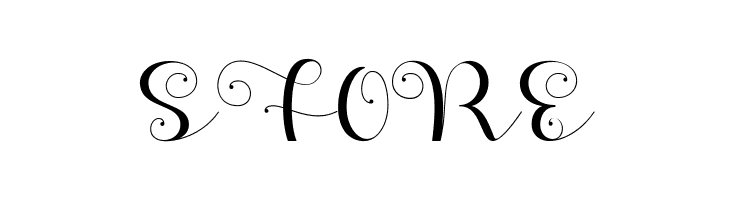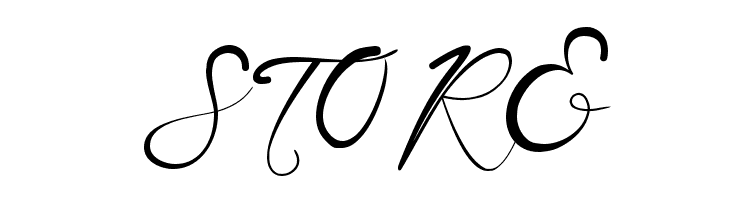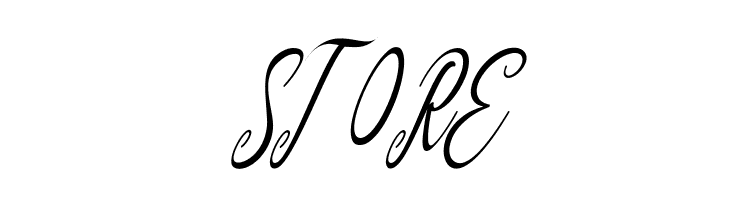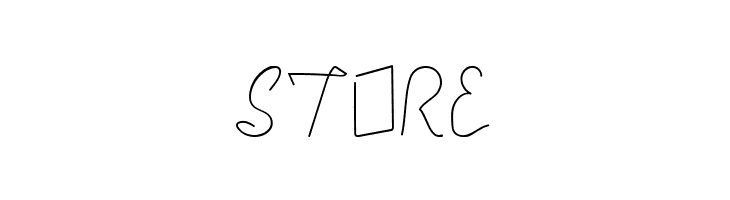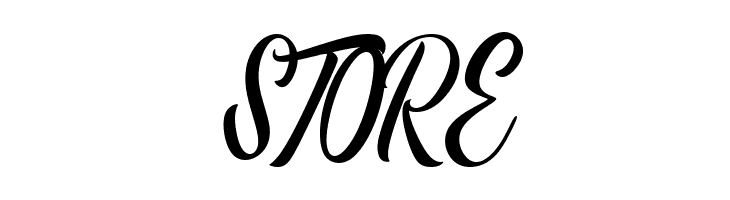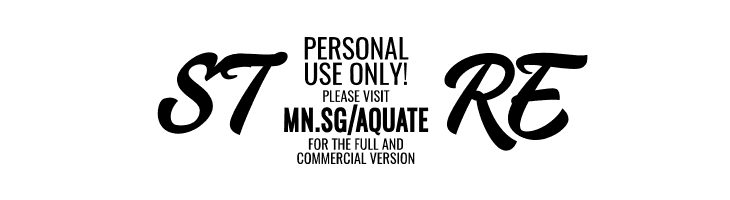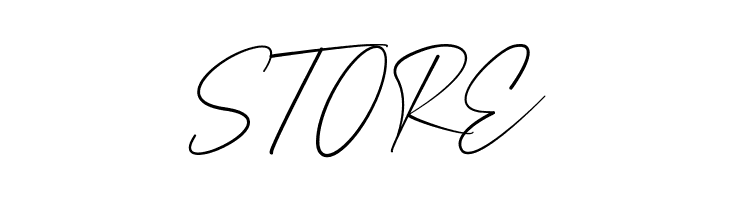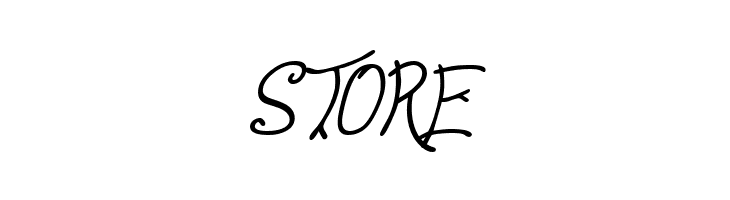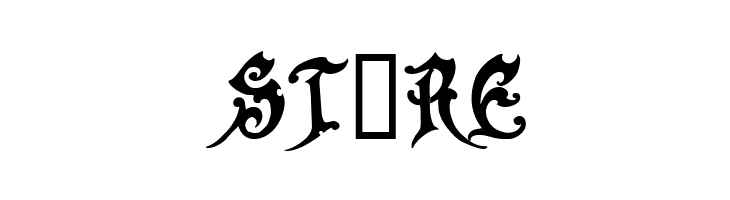
• Anthemy Script
A flowing, cursive script font with elegant, interconnected strokes.
• Anthonio Script
A graceful, flowing script font with elegant curves and delicate strokes.
• Anyway Italic
• Apollyon!"
• Apples Script
An elegant and ornate script font with intricate swirls and decorative flourishes.
• Apples Script Demo
A decorative script font with elegant swirls and loops, perfect for adding sophistication.
• Aqua Script
An elegant script font with fluid, flowing lines and sophisticated curves.
• Aquate Script PERSONAL USE ONLY
A bold, flowing script font with elegant curves and a dynamic style.
• Aquilegia Script Regular
A delicate and flowing script font with elegant, cursive letterforms.
• Aquilera Script Regular
An elegant script font with flowing, cursive letters and intricate swashes.